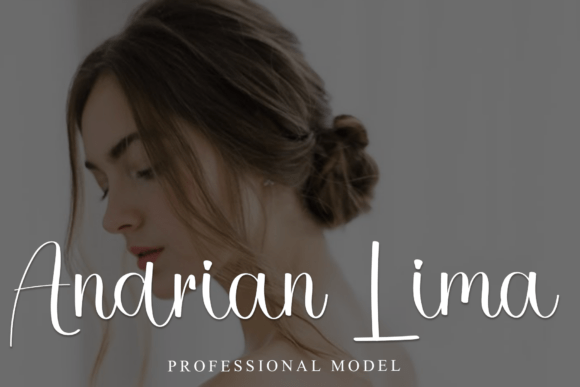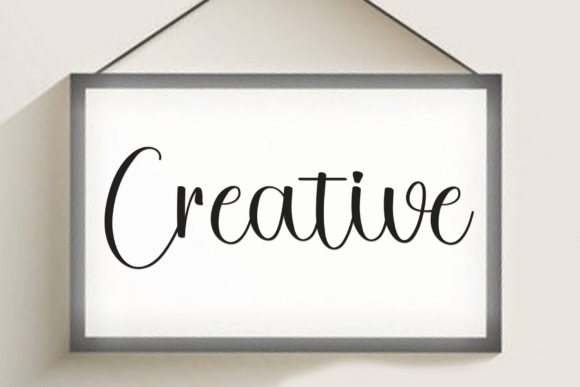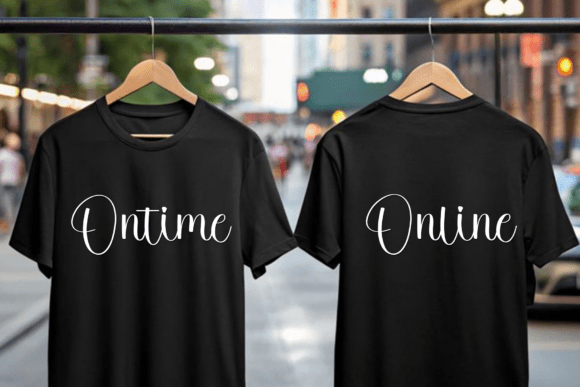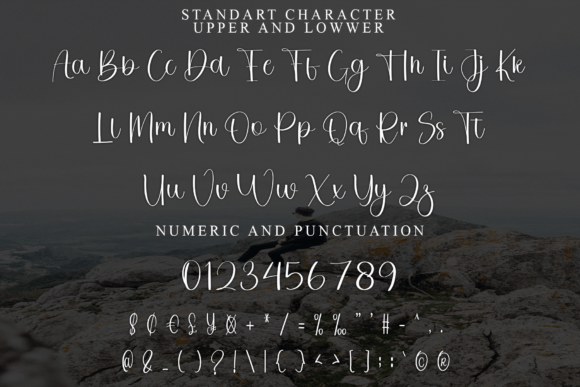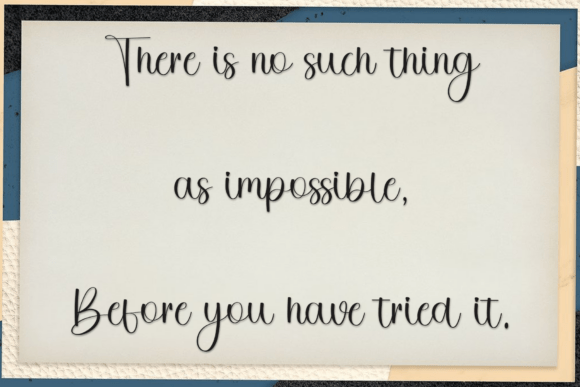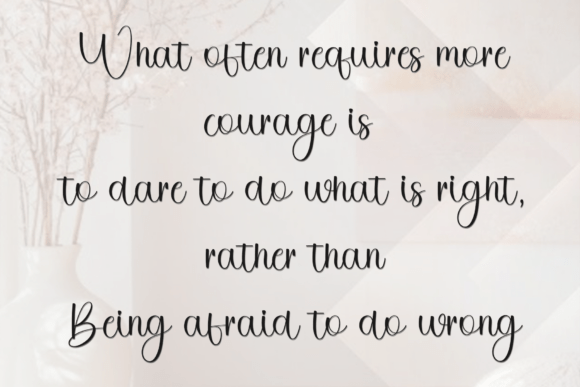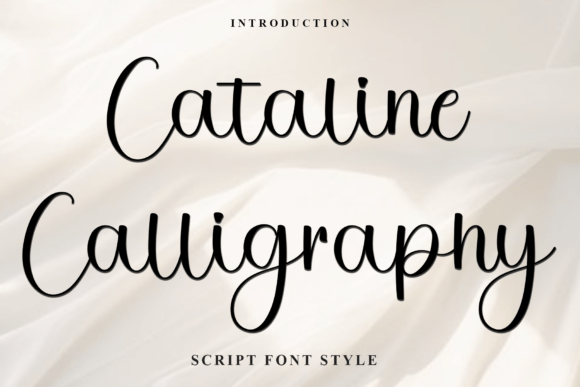
Cataline Calligraphy Font: Add a Touch of Holiday Magic to Your Designs
The holiday season is upon us, and what better way to get into the spirit than with a festive and merry typeface? Look no further than the Cataline Calligraphy Font, a beautiful and enchanting font that captures the essence of the holiday season. With its decorative elements and whimsical flair, this font is perfect for adding a touch of magic to your designs.
Cataline Calligraphy is a stunning example of a festive and merry typeface. Its intricate details and flowing lines evoke a sense of nostalgia and cheer, making it perfect for holiday-themed projects. Whether you’re designing greeting cards, gift tags, or festive posters, this font is sure to bring a smile to your face and a touch of enchantment to your designs.
So, what makes Cataline Calligraphy Font so perfect for holiday projects? For starters, its decorative elements and whimsical flair add a touch of festivity to any design. The font’s intricate details and flowing lines also give it a sense of elegance and sophistication, making it perfect for more formal holiday designs. Plus, with its PUA encoding, you can access all of the amazing glyphs and ligatures with ease, making it simple to create beautiful and unique designs.
For those who may not be familiar, PUA (Private Use Area) encoding is a way of accessing special characters and glyphs within a font. In the case of Cataline Calligraphy Font, PUA encoding means that you can easily access all of the font’s amazing features, including ligatures, swashes, and other decorative elements. This makes it simple to create beautiful and unique designs that are sure to stand out.
Use Cataline Calligraphy Font for:
- Greeting cards: Whether you’re creating Christmas cards, Hanukkah cards, or holiday cards for any other occasion, Cataline Calligraphy Font is the perfect choice.
- Gift tags: Add a touch of elegance and sophistication to your gift tags with this beautiful font.
- Holiday posters: Create eye-catching posters for your holiday events or promotions with Cataline Calligraphy Font.
- Social media graphics: Add a touch of holiday cheer to your social media graphics with this festive font.
- And more: With its versatility and elegance, Cataline Calligraphy Font can be used for a wide range of holiday projects and designs.
Why Choose Cataline Calligraphy Font?
So, why choose Cataline Calligraphy Font for your holiday designs? Here are just a few reasons:
- Unique and festive: This font is sure to stand out in any design, adding a touch of holiday magic to your words.
- Elegant and sophisticated: With its intricate details and flowing lines, Cataline Calligraphy Font is perfect for more formal holiday designs.
- Easy to use: With PUA encoding, accessing the font’s special characters and glyphs is simple and easy.
- Versatile: This font can be used for a wide range of holiday projects and designs.
In conclusion, Cataline Calligraphy Font is a beautiful and enchanting font that is perfect for adding a touch of holiday magic to your designs. With its decorative elements and whimsical flair, this font is sure to bring a smile to your face and a touch of elegance to your designs. Whether you’re a designer or crafter, this font is a must-have for any holiday project. So why wait? Get your hands on Cataline Calligraphy Font today and start creating beautiful and unique holiday designs!